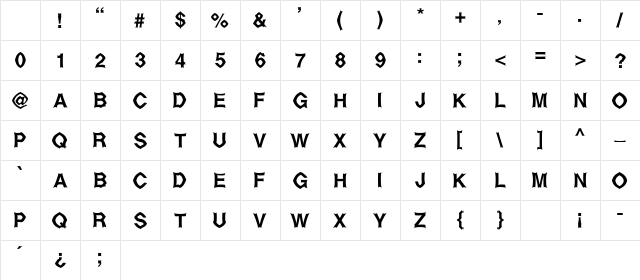
Metal-Up-Your-Ear Regular Free Font
Metal-Up-Your-Ear Regular
Design Context for Metal-Up-Your-Ear
Metal-Up-Your-Ear is a composed and adaptable typeface that performs quietly and consistently across a wide range of design contexts.